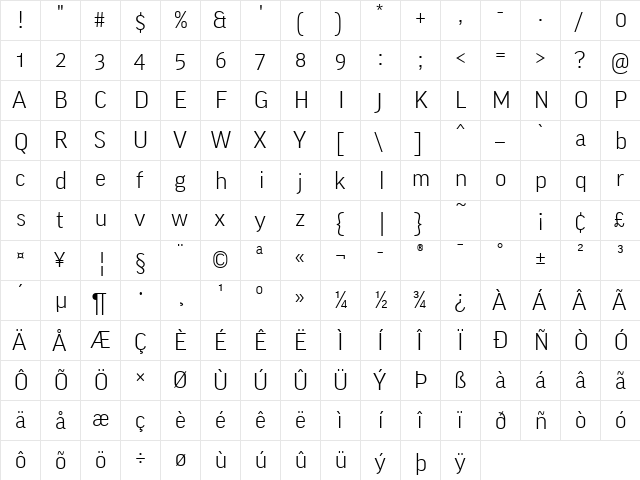
GoodOSF-Light Regular
| Foundry | FSI Fonts und Software GmbH |
| Designer | Lukasz Dziedzic |
Design Context for GoodOSF-Light Typeface
GoodOSF-Light offers clean, dependable letterforms without strong stylistic allegiance, making it a practical choice for designers who need flexibility. The delicate stroke weight brings airiness and refinement to layouts.